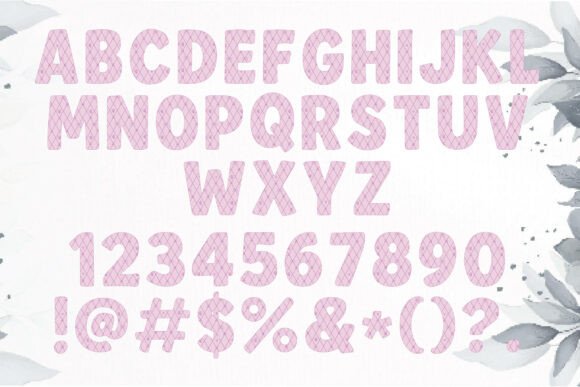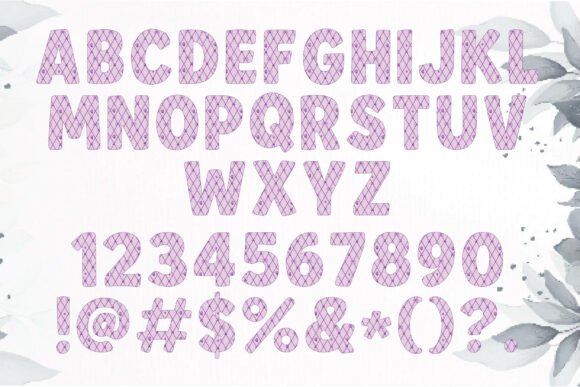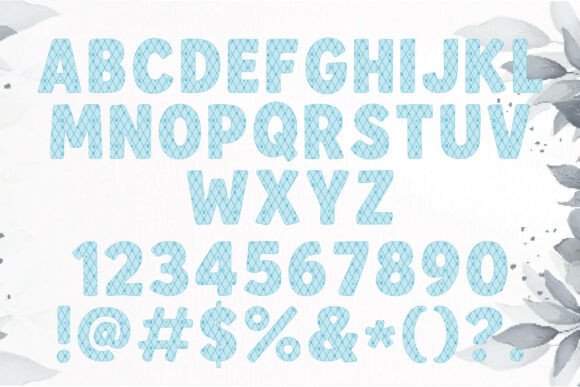
Introduction to Mama Lace Font
Mama Lace Alphabets Bundle πŸŒΈπŸ’– Mama Lace Font Bundle – Cute Mom Alphabet Collection Create elegant and beautiful designs with this stunning Mama Lace Font Bundle.
This collection features stylish lace-inspired letter designs, perfect for adding a soft, feminine, and decorative touch to your projects These fonts are ideal for Mother’s Day designs, mom-themed gifts, and creative craft projects.